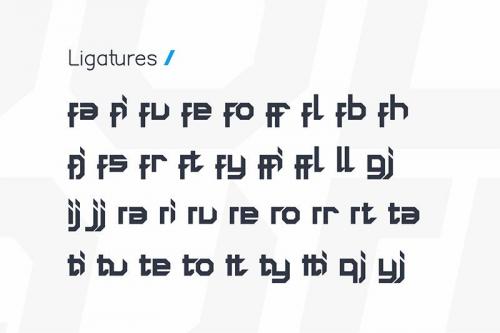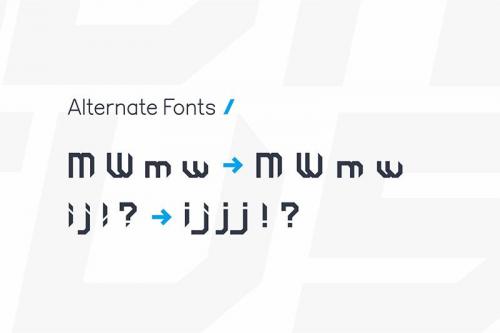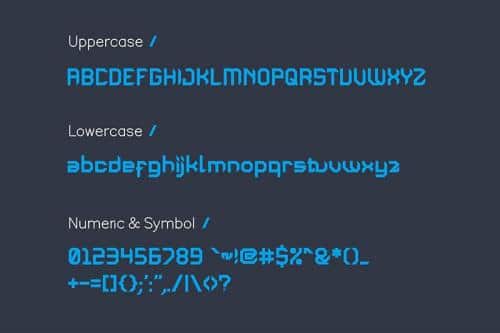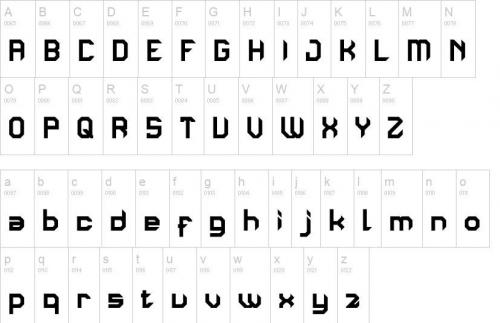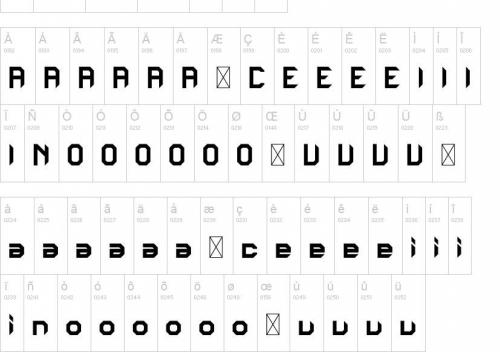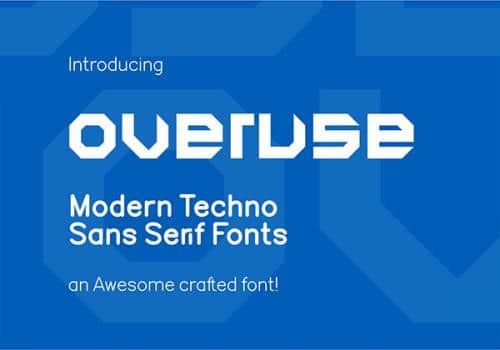
Overuse Font is an Awesome crafted font! Using style of modern techno sans serif fonts, very suitable for futuristic / techno / mecha project design.
- Designer: Imagi Factory